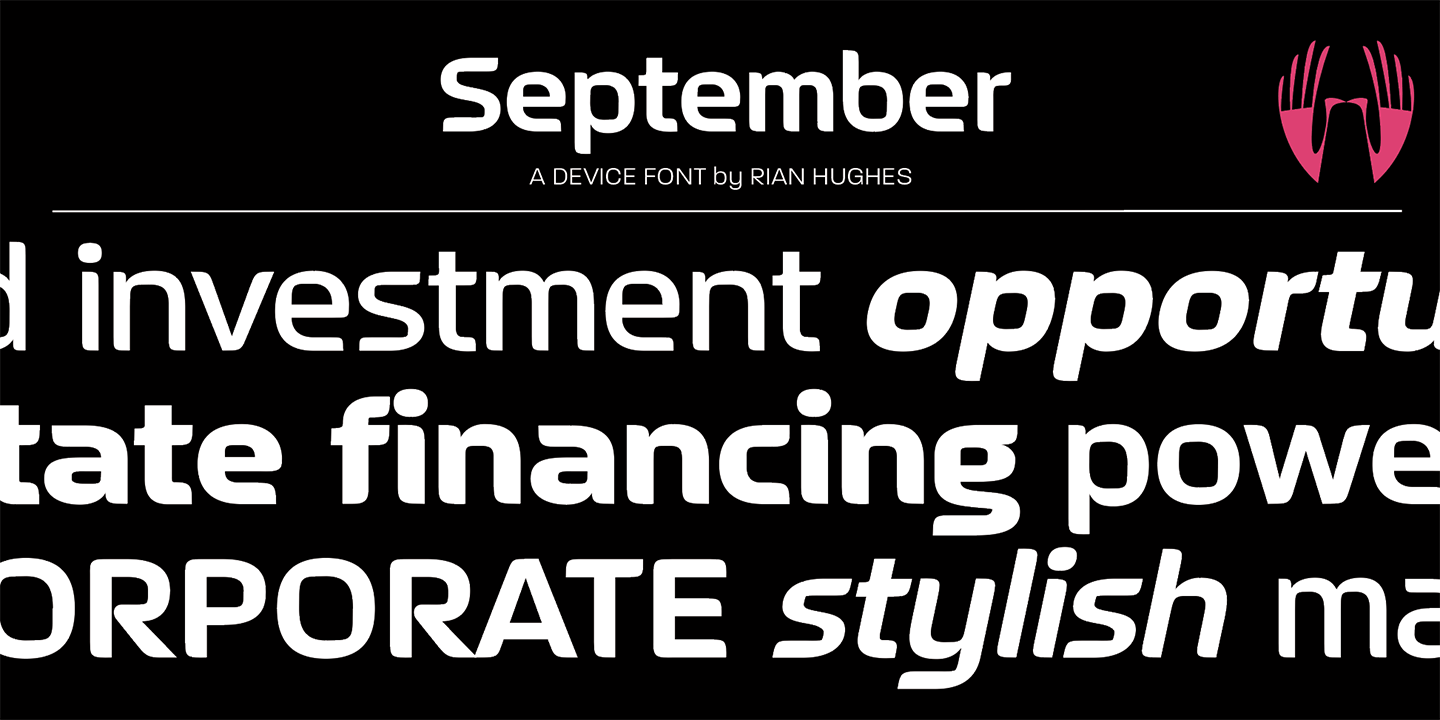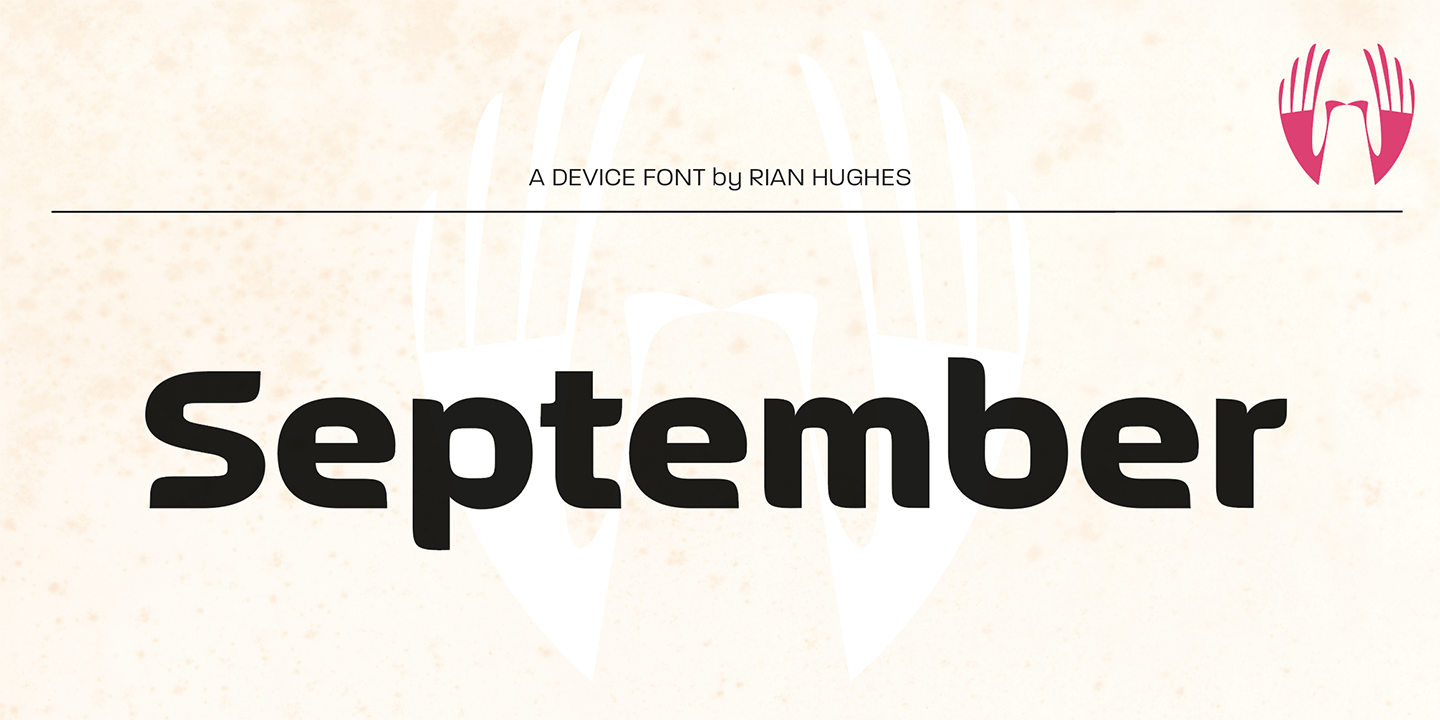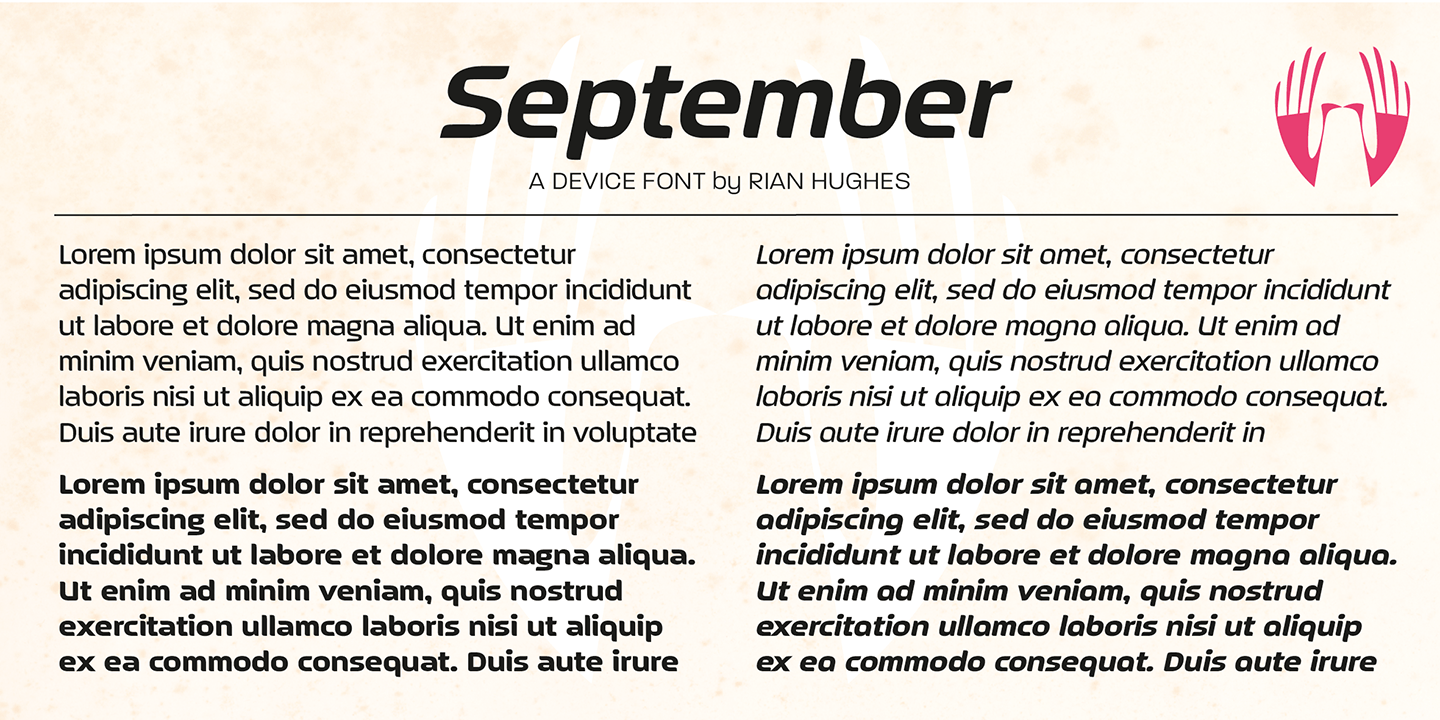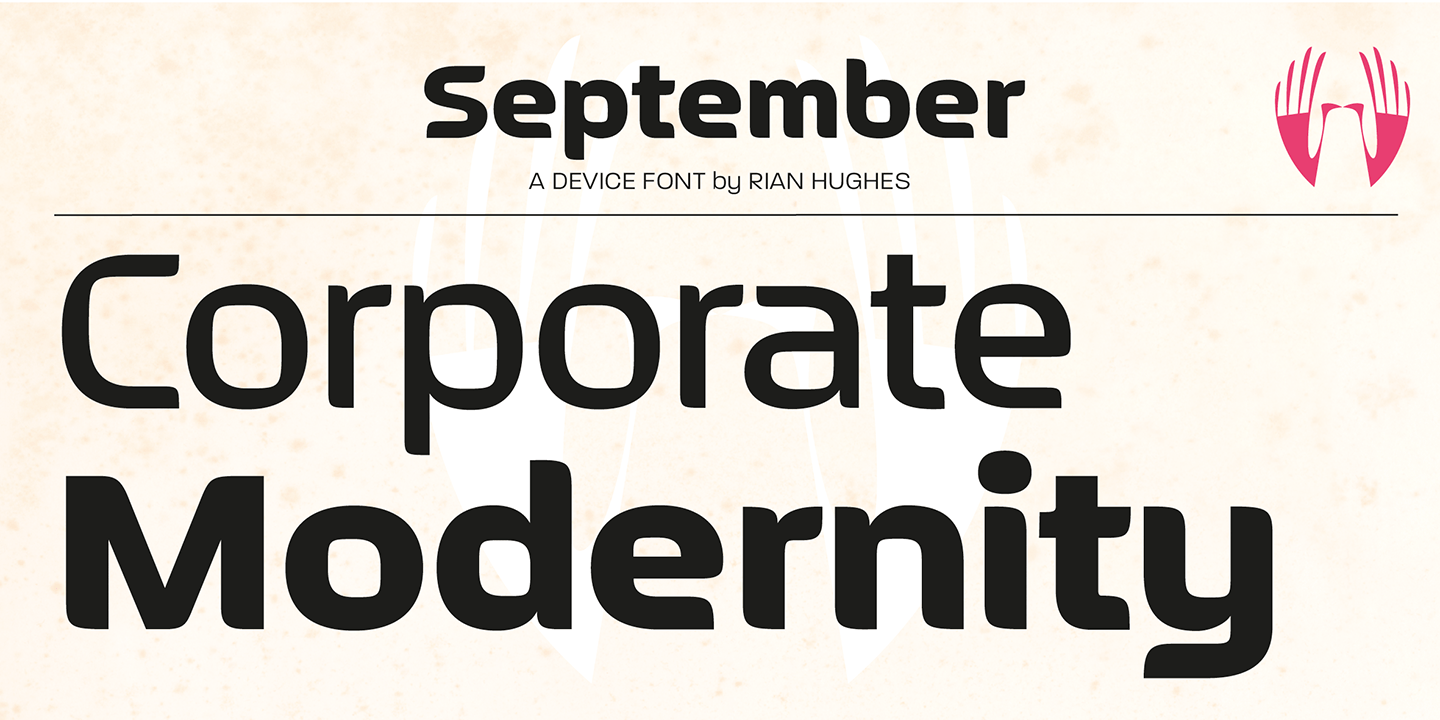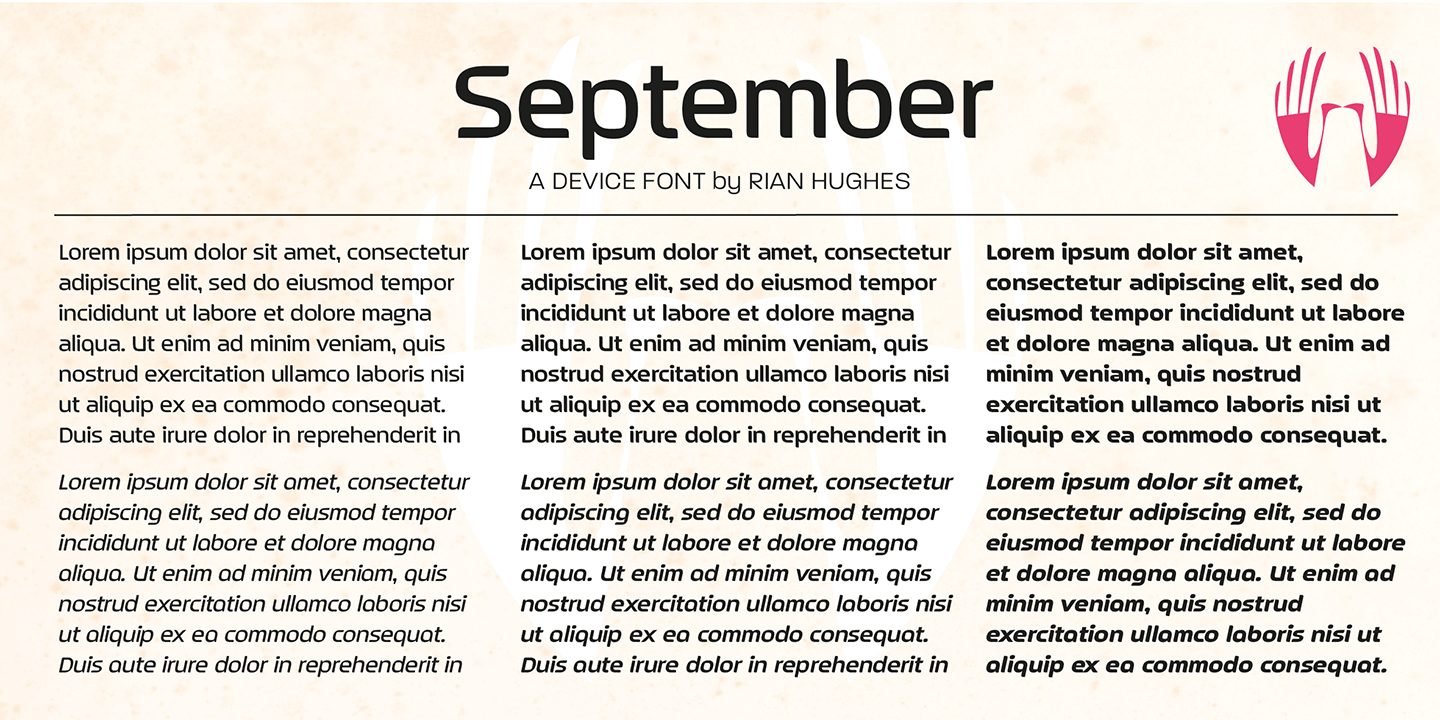
September
Font Family by Device Fonts
A modern, authoritative and robust design for headline and shorter texts, September has the requisite presence for corporate and academic use, company brochures, branding, sport packaging, television idents, posters, packaging and film titles.